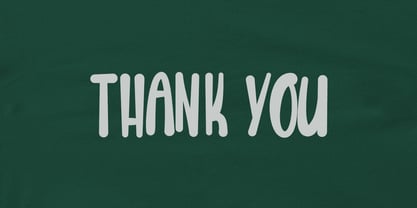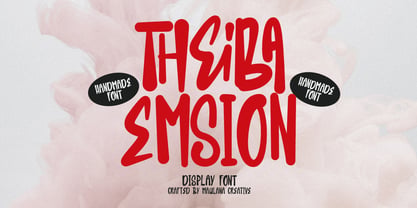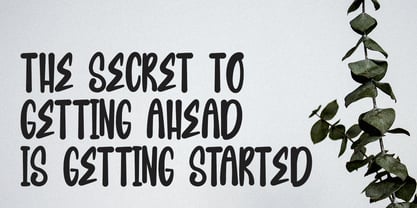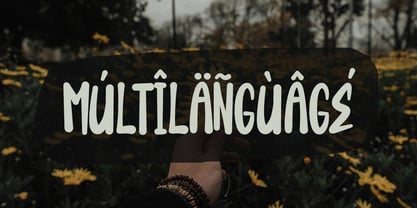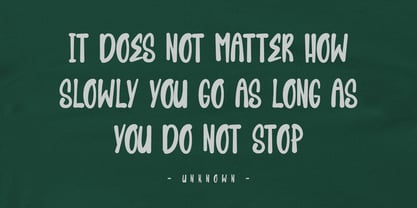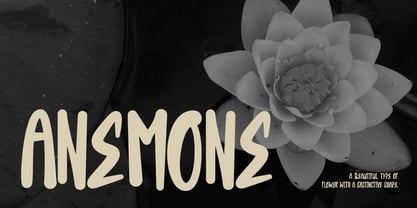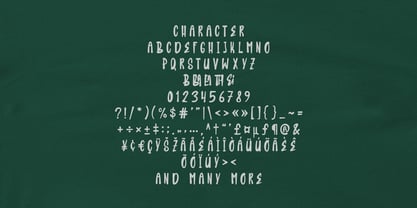
MC Theiba Emsion
by Maulana Creative
The MC Theiba Emsion Font Family was designed by Gilang Maulana and published by Maulana Creative. MC Theiba Emsion contains 1 styles. More about this family
Theiba Emsion is a handmade display font. With cartoon vibes or notes, had a fun character with a bit of ligatures. To give you an extra creative work. Theiba Emsion font support multilingual more than 100+ language. This font is good for logo design, Social media, Movie Titles, Books Titles, a short text even a long text letter and good for your secondary text font with sans or serif. Make a stunning work with Theiba Emsion font.
Designers: Gilang Maulana
Foundry: Maulana Creative